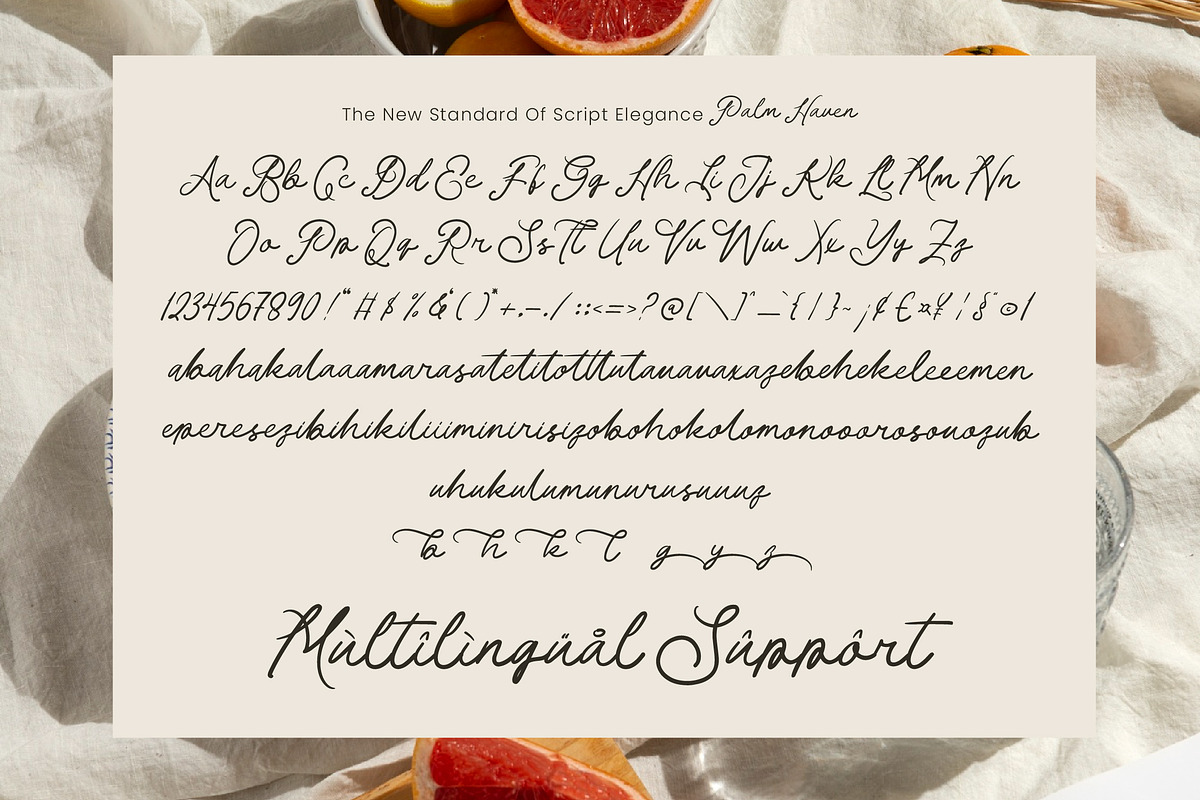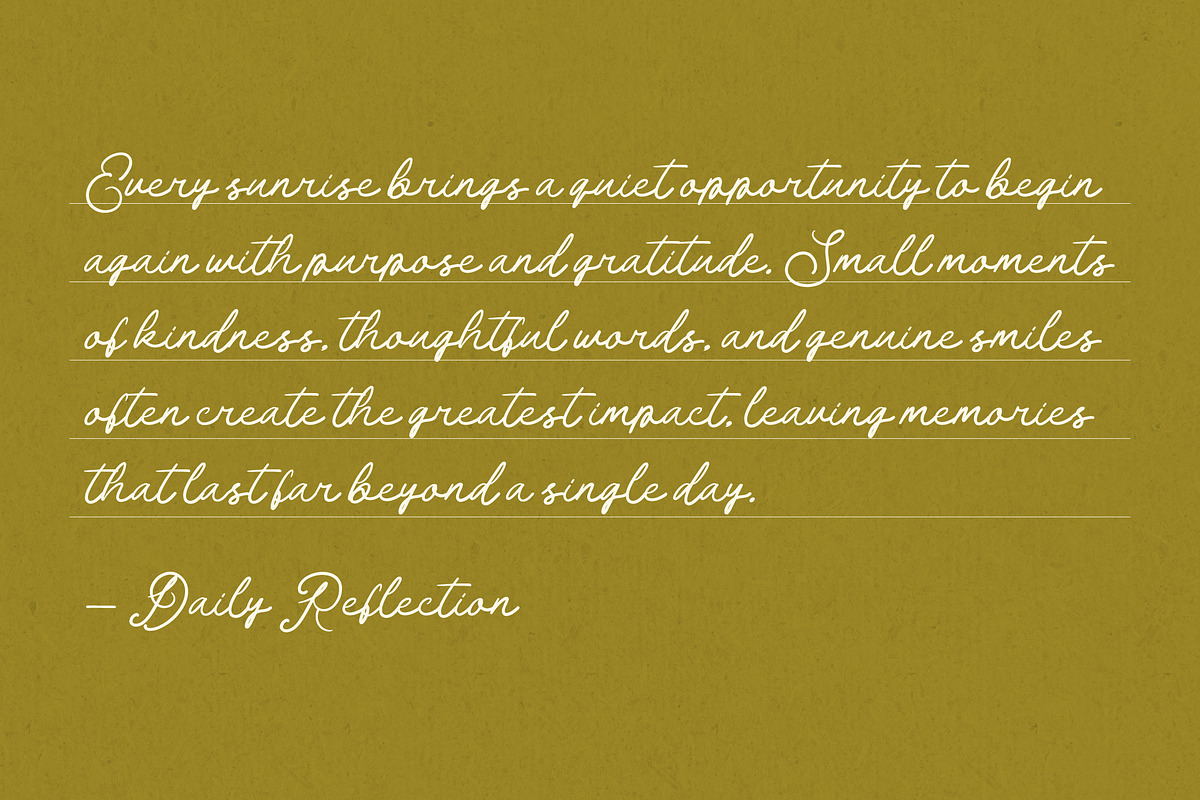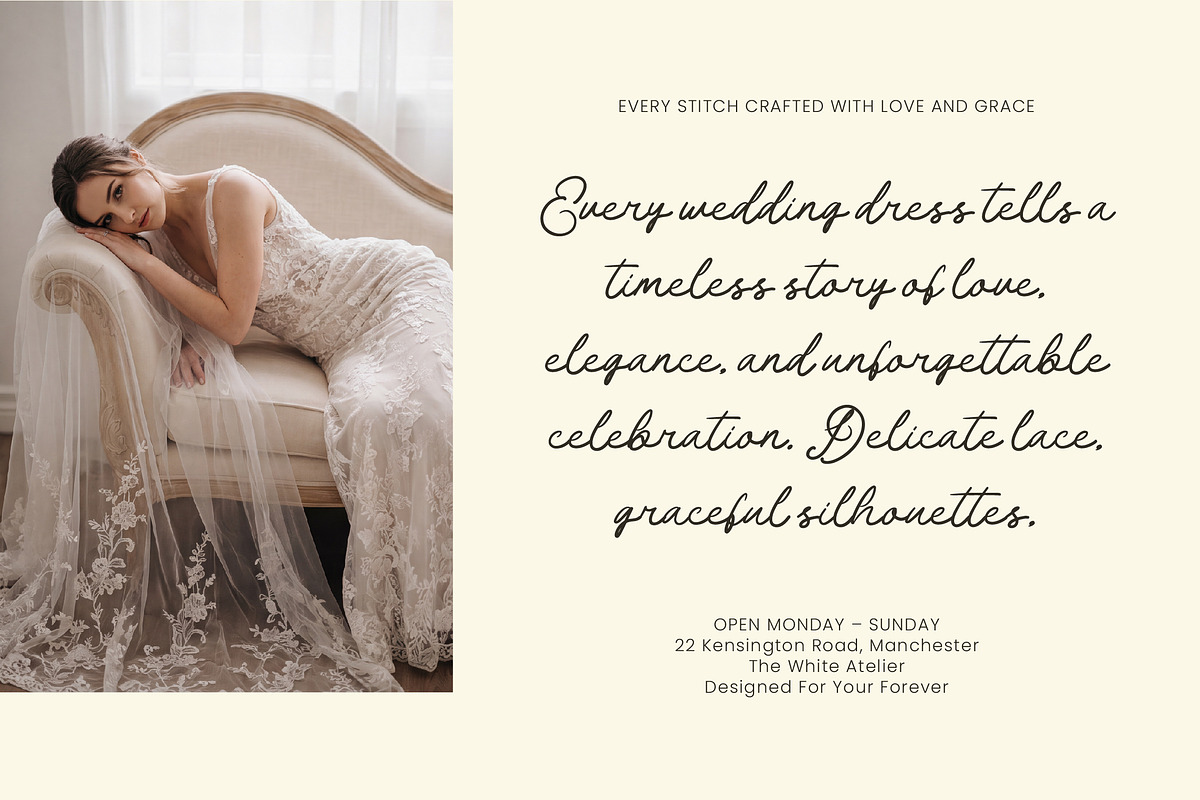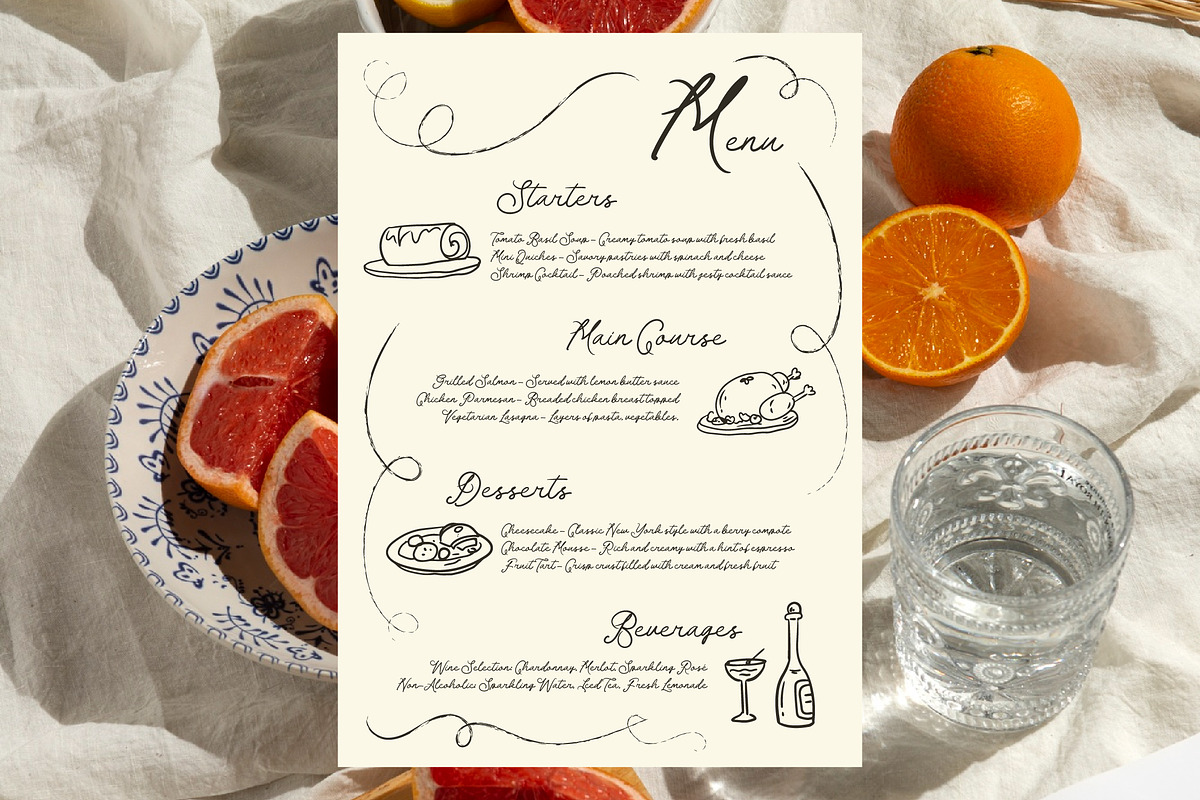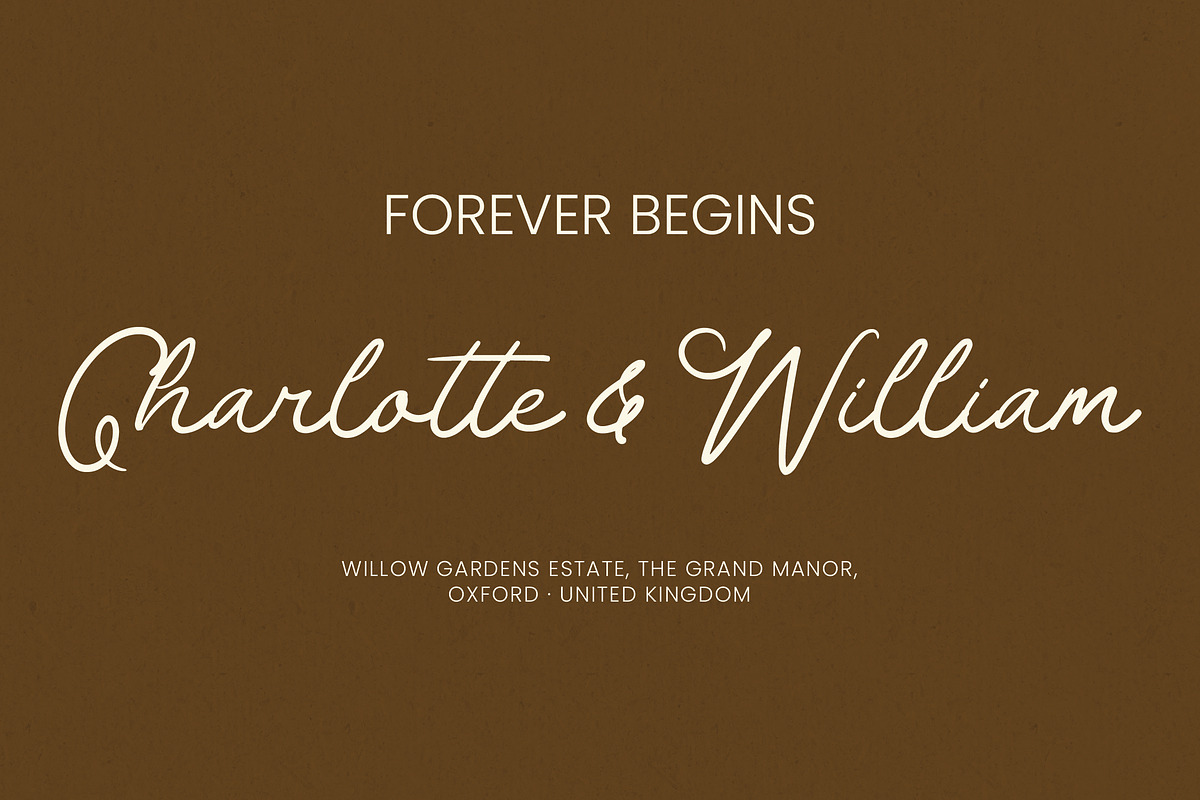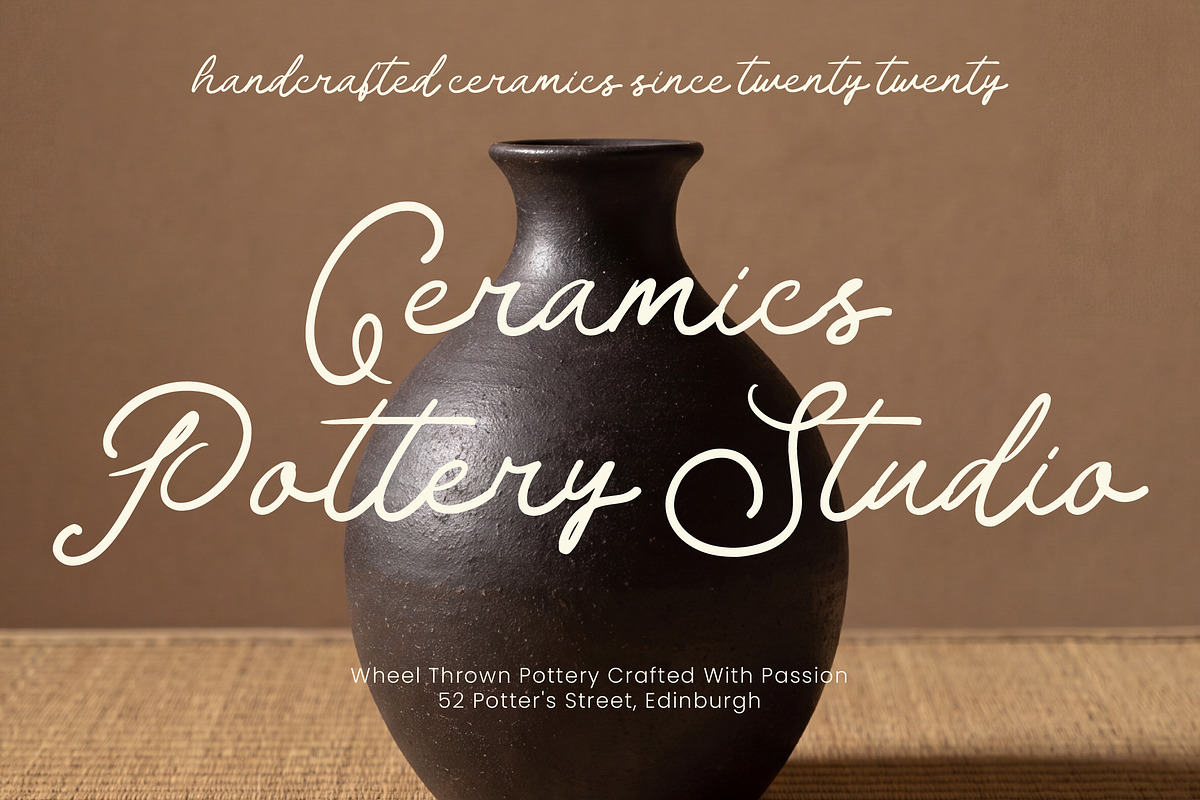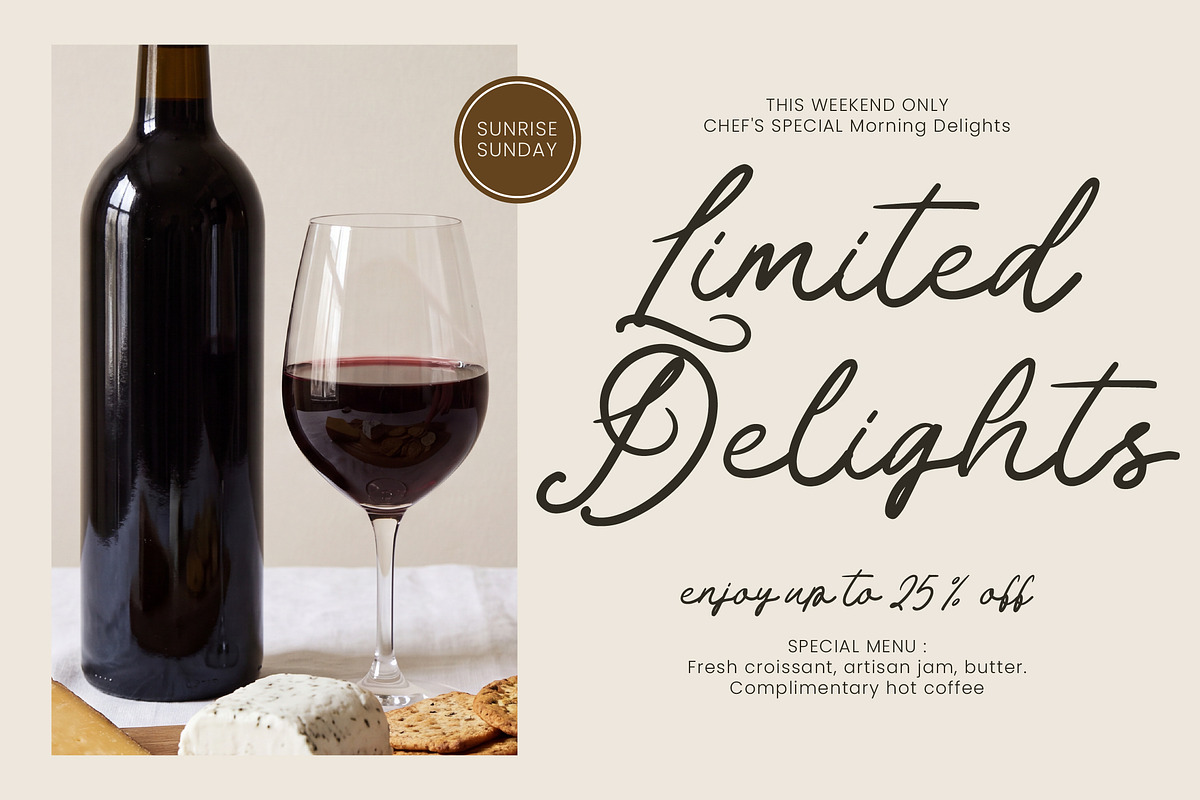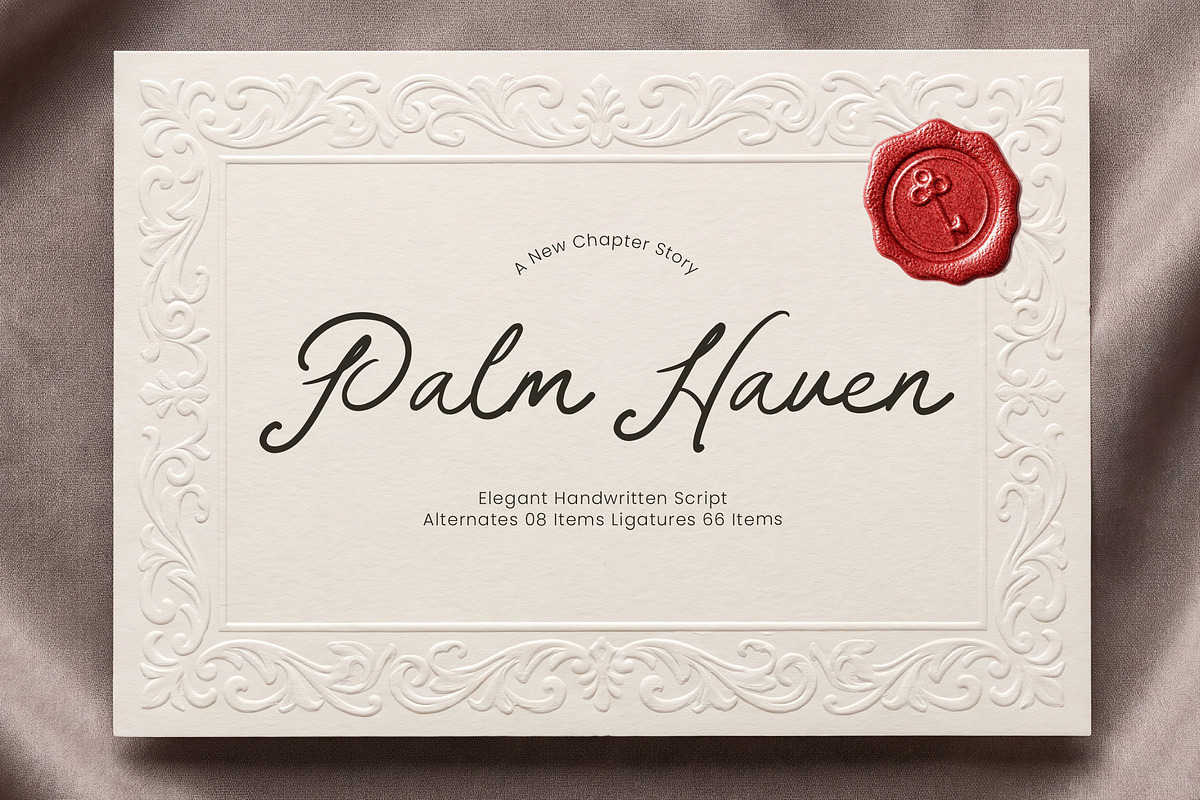
Palm Haven Elegant Handwritten
Palm Haven is an elegant handwritten script font designed to express sophistication, warmth, and timeless beauty. Inspired by handwritten letters, romantic celebrations, refined stationery, and luxury lifestyle aesthetics, Palm Haven delivers a graceful personality while maintaining a natural and authentic handwritten flow.
With delicate curves, flowing connections, and expressive strokes, this typeface is perfect for wedding invitations, luxury branding, beauty packaging, event stationery, boutique businesses, lifestyle content, social media visuals, and editorial projects that require an elegant and personal touch.
Its refined handwritten rhythm creates typography that feels both intimate and sophisticated, allowing designers to craft memorable visual experiences with effortless elegance.
🔡 OpenType Features: 66 Ligatures & 8 Alternates
✏️ Full Character Set Included
🌍 Multilingual Support